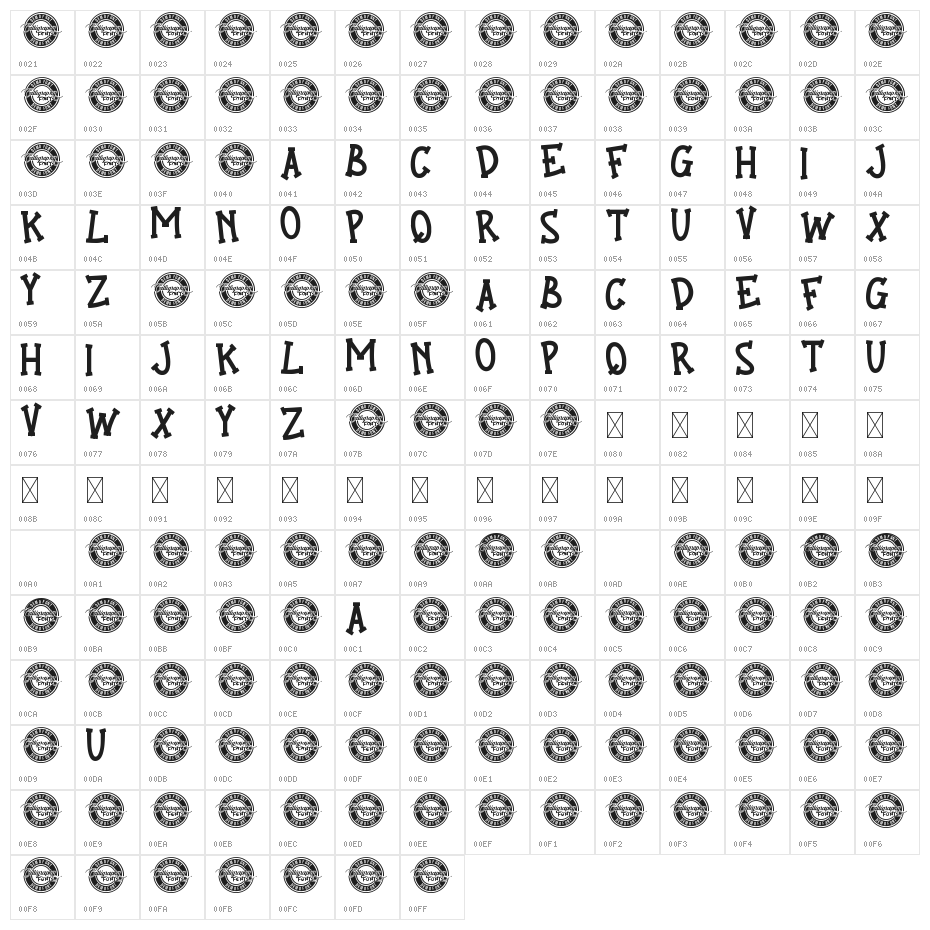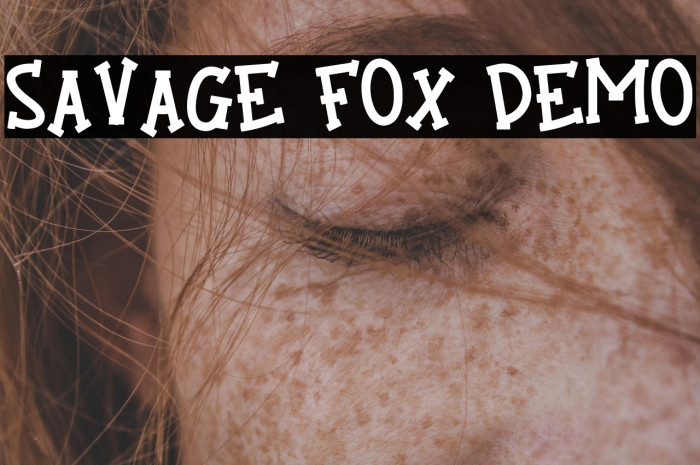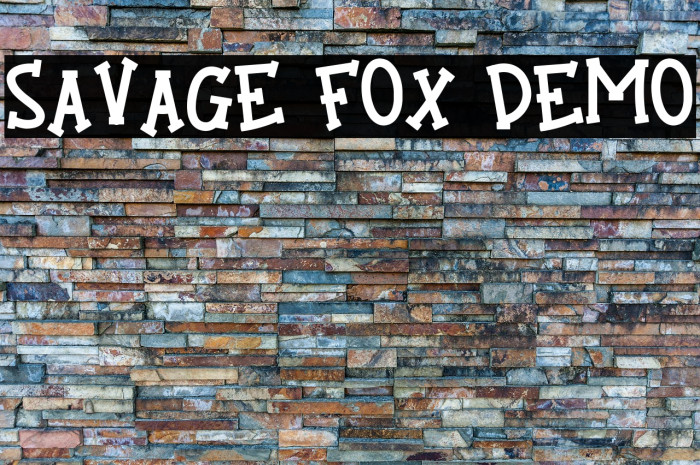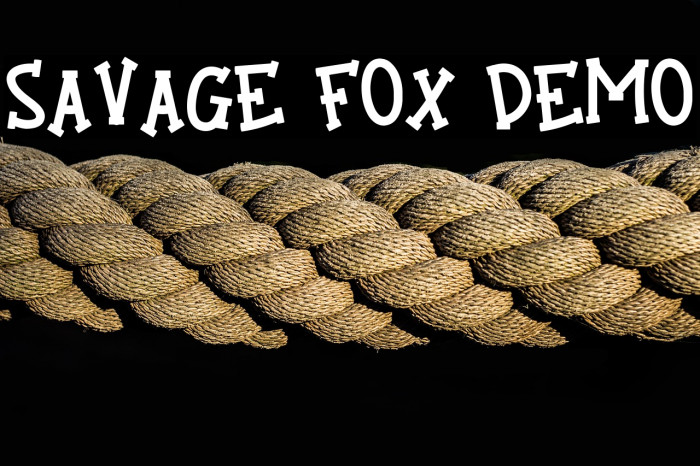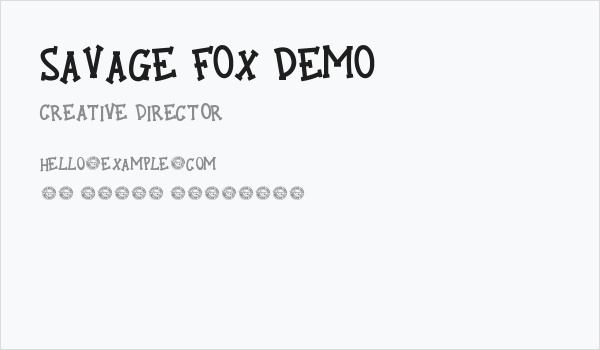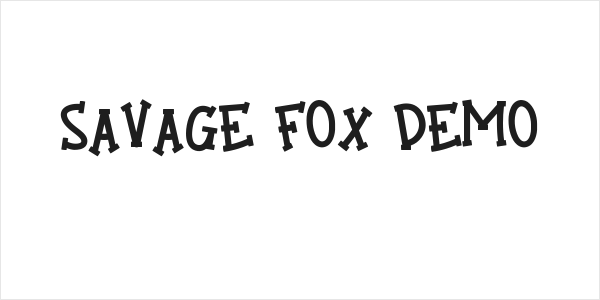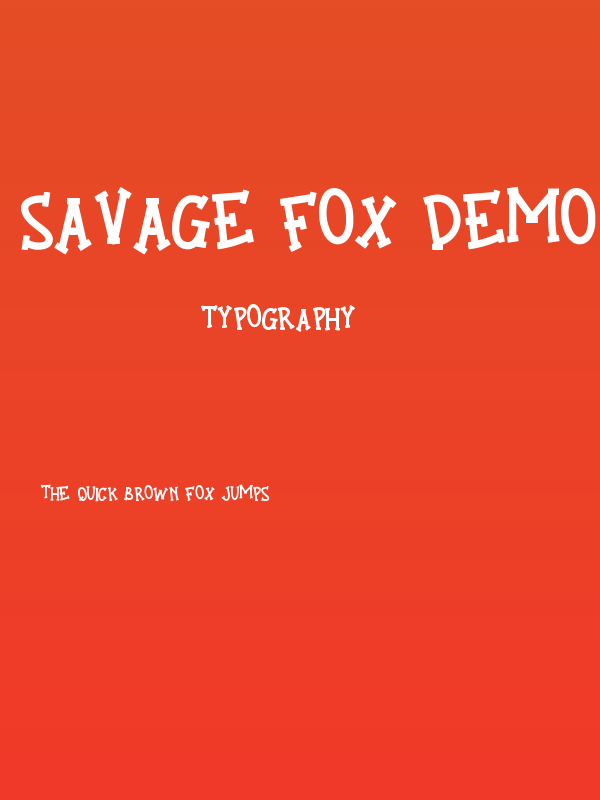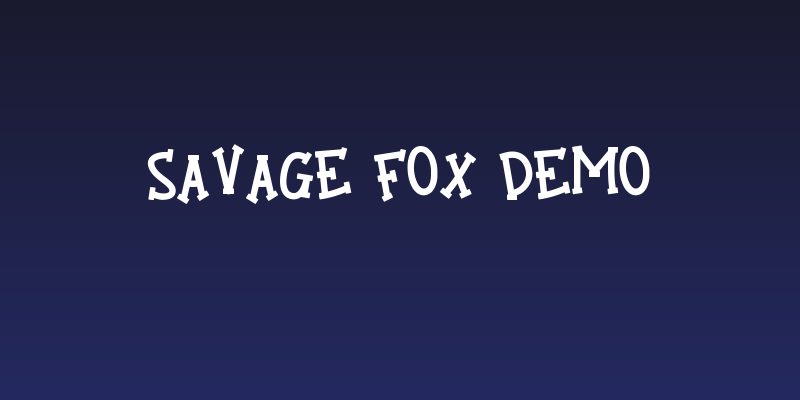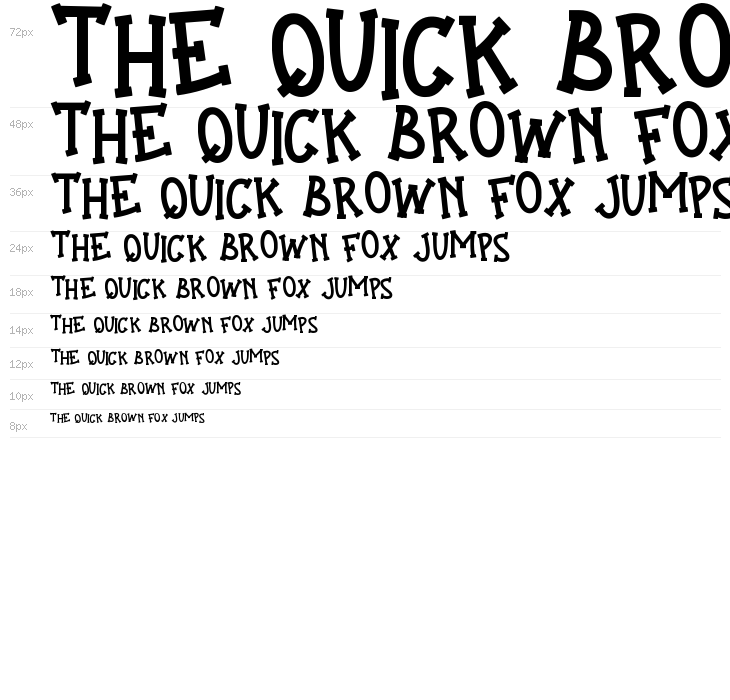
Savage Fox Demo Font
Savage Fox Demo Description
This font features a playful and bold style with a slightly irregular and whimsical appearance. The characters are designed with a sense of movement and energy, making them stand out with a unique flair. The uppercase letters have a distinct, exaggerated curvature, while the lowercase letters maintain a consistent style that complements the overall design. The font's boldness is emphasized by its thick strokes and high contrast, giving it a strong visual impact. It's perfect for projects that require a fun and lively touch, such as children's books, playful branding, or eye-catching headlines.
| Overall Style | Playful, Energetic |
| Proposed Projects | Ideal for children's books, playful branding, and eye-catching headlines. |